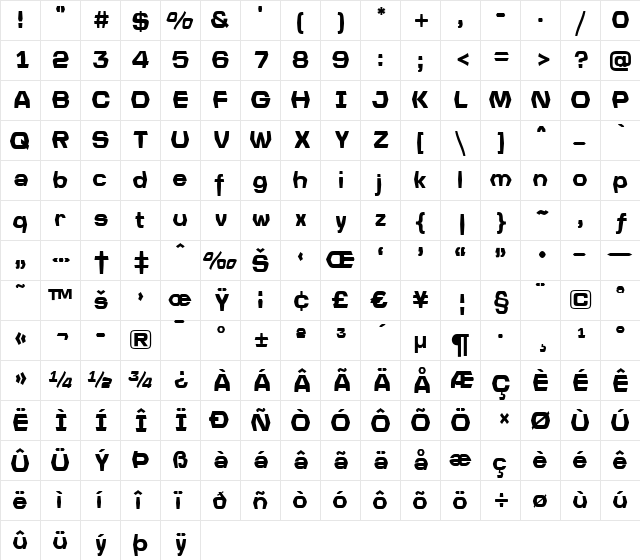
a_LineaSansFld Bold
| Designer | W.Chufarofsky & M.Slutsker |
Design Context for a_LineaSansFld Typeface
a_LineaSansFld takes a measured approach to typography — its balanced proportions and neutral character make it a reliable workhorse for both digital and print work. Its bold stroke weight gives it real presence on the page.